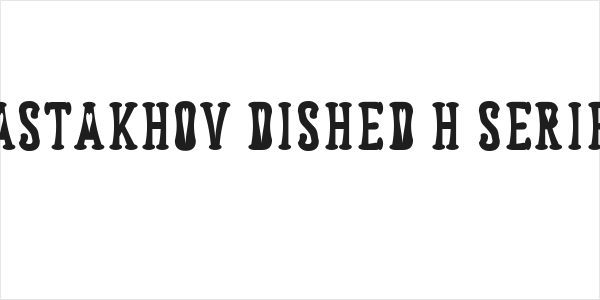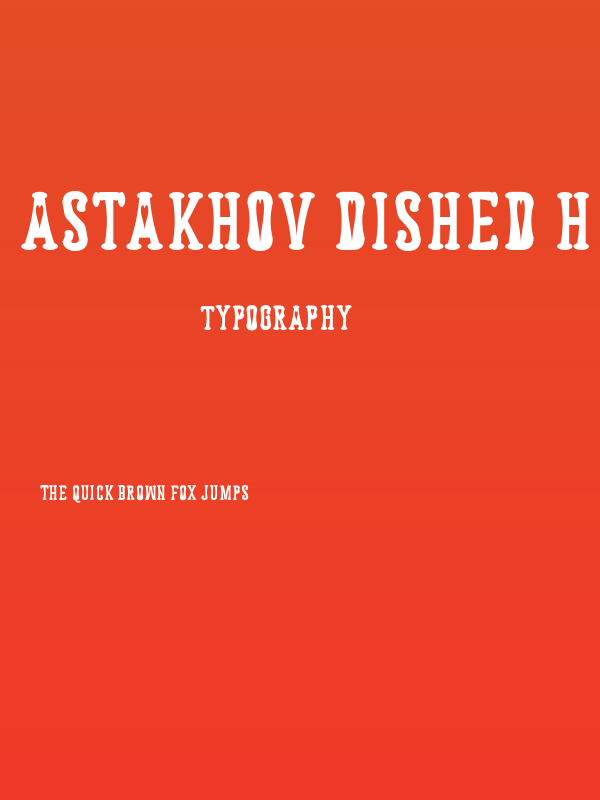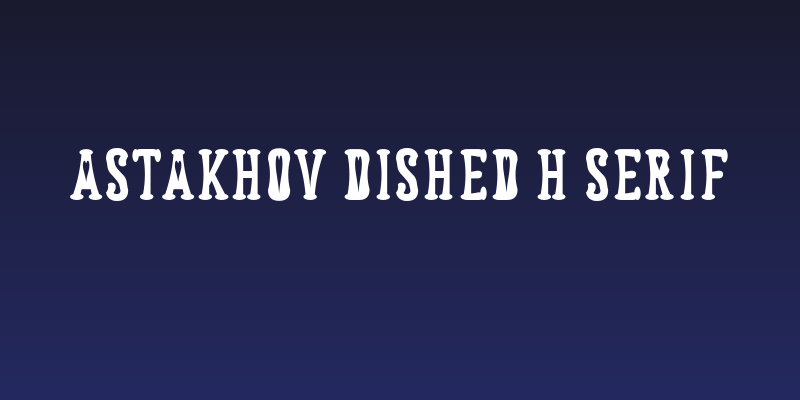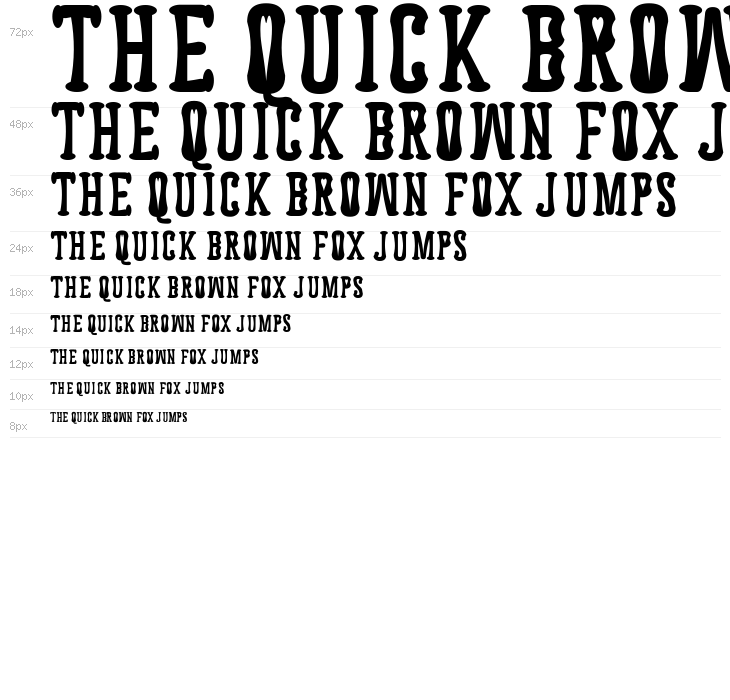
Astakhov Dished H Serif Font
Astakhov Dished H Serif Description
This font features a bold and distinctive style with thick, heavy strokes and pronounced serifs. The characters have a unique, slightly condensed form with a playful and decorative flair. The uppercase letters are robust and commanding, while the lowercase letters maintain a consistent style that complements the uppercase. The numerals are equally bold, ensuring visibility and impact. Special characters are creatively designed, adding to the font's overall decorative appeal. This font is ideal for projects that require a strong visual presence and a touch of whimsy.